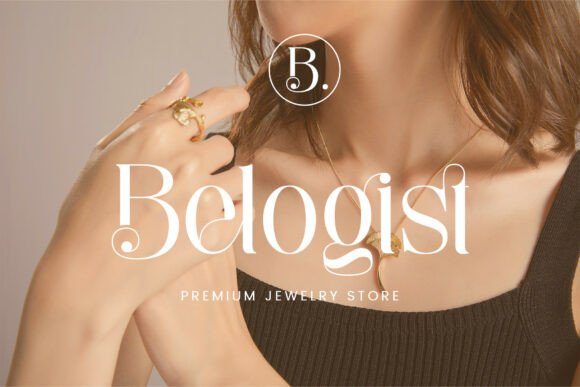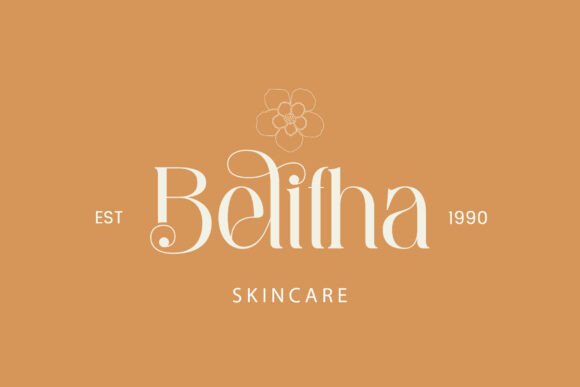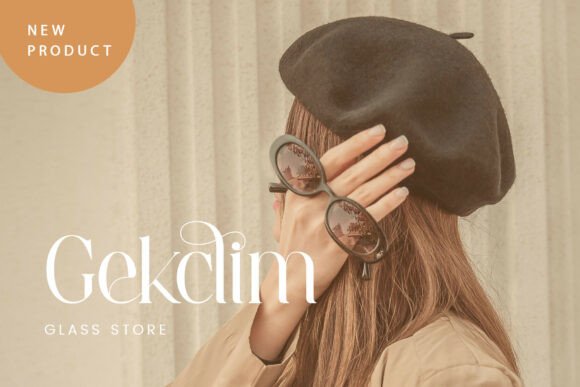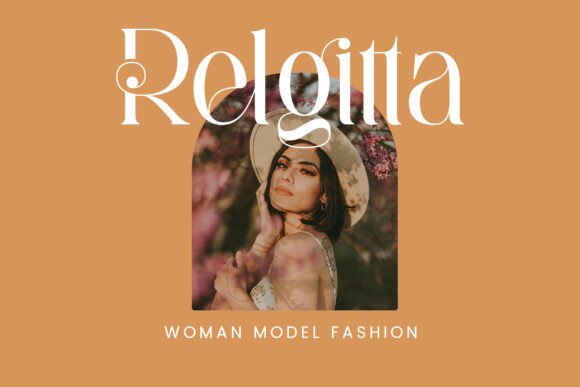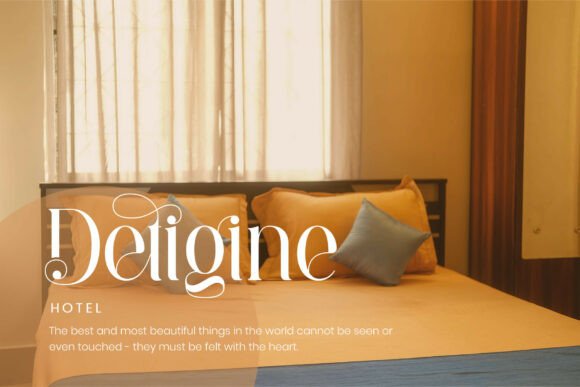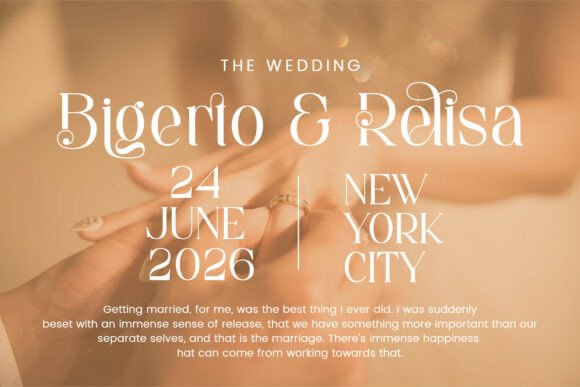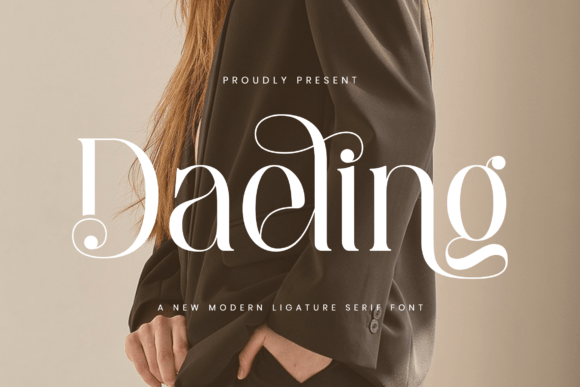
Unveiling the Elegance of Daeling Font: A Modern Ligature Serif Marvel
In the realm of typography, few fonts manage to strike a balance between elegance, sophistication, and customization. However, the Daeling Modern Ligature Serif Font breaks this mold, offering an unparalleled typographic experience. This magnificent font is not just a typeface; it’s an art form that brings a new level of refinement to the world of design. With its striking high contrast and spectacular flourishing swashes and alternates, Daeling is poised to revolutionize the way designers approach luxury branding, packaging, and editorial projects.
The Distinctive Features of Daeling Font
Daeling sets itself apart from traditional serif fonts with its breathtaking circular and elaborate connections. These unique ligatures transform simple text into customized, flowing art that captivates and engages. The exquisite ornamentation on the terminals and baseline of the letters adds a layer of sophistication, making the font truly unforgettable. This level of detail is rare in typefaces and is a testament to the craftsmanship that has gone into creating Daeling.
Applications of Daeling Font
The versatility of Daeling font makes it an ideal choice for a variety of design projects. For luxury product packaging, it offers a way to communicate prestige and high-end quality. In high-fashion editorials, Daeling brings a touch of elegance and artistry, elevating the visual appeal of the content. Creative wedding logos and bespoke signature branding are also perfect applications for this font, as it can convey personalized elegance and sophistication.
Unleashing Creativity with Daeling
One of the most significant advantages of the Daeling font is its ability to offer designers a powerful tool for creating unique and stunning designs. The inclusion of PUA encoding ensures that all special characters and decorative elements are easily accessible without the need for additional software. This accessibility means that designers can focus on the creative aspect of their projects, pushing the boundaries of what’s possible with typography.
The Art of Customization
Customization is at the heart of the Daeling font. The spectacular swashes and alternates allow designers to add a personal touch to their work, making each project truly bespoke. Whether it’s adjusting the ligatures to fit a specific theme or utilizing the alternates to add variation, Daeling offers a level of flexibility that is hard to find in other typefaces.
Daeling in the Digital Age
In today’s digital landscape, the ability to stand out is more crucial than ever. The Daeling font, with its unique characteristics and elegant design, provides the perfect solution for designers looking to make a statement. From digital editorials to social media branding, Daeling’s high contrast and elaborate connections ensure that any content stands out in a crowded online space.
The Daeling Modern Ligature Serif Font is a game-changer in the world of typography. Its unique blend of elegance, sophistication, and customization options makes it an invaluable asset for designers. Whether you’re working on a luxury branding project, a high-fashion editorial, or a bespoke wedding logo, Daeling offers the tools to create something truly unforgettable. With its ease of use, thanks to PUA encoding, and its stunning visual appeal, Daeling is set to become a favorite among designers and crafters alike.
Incorporate the Daeling font into your next project and experience the transformation of simple text into flowing art. Discover unparalleled elegance and bespoke customization like never before, and push the boundaries of refined typography with Daeling.